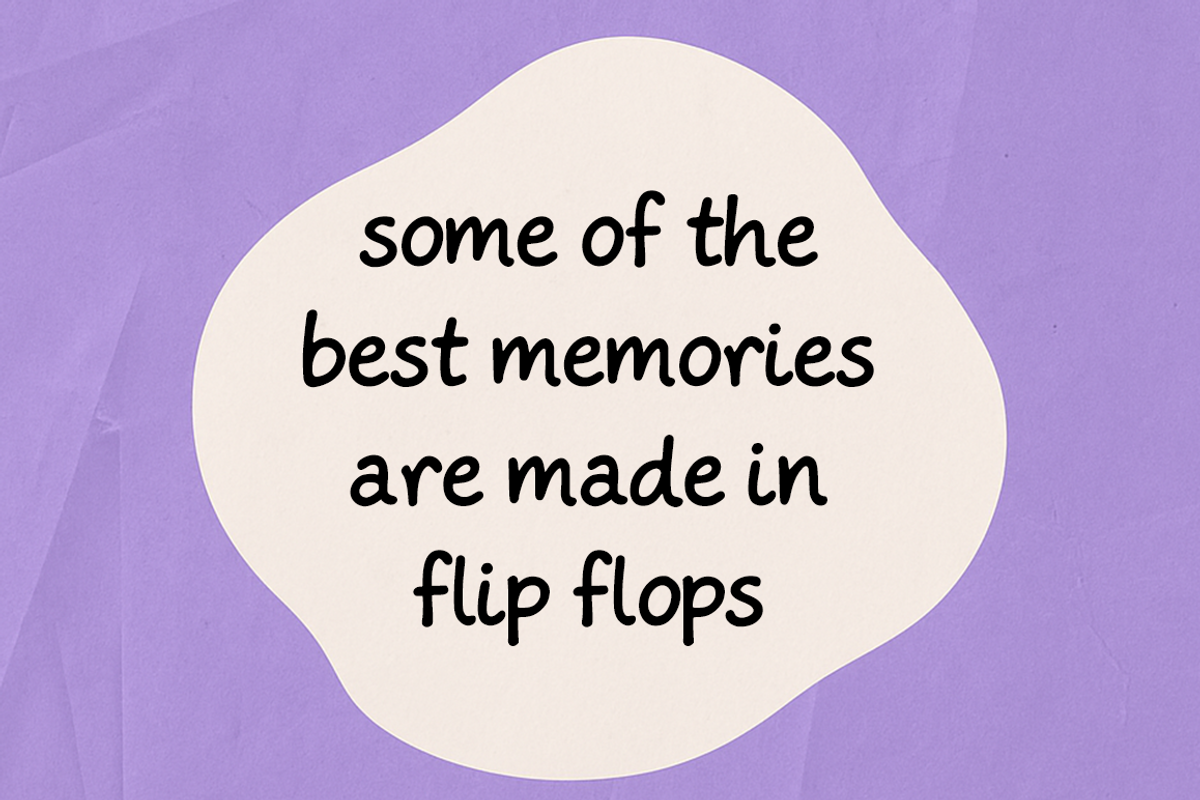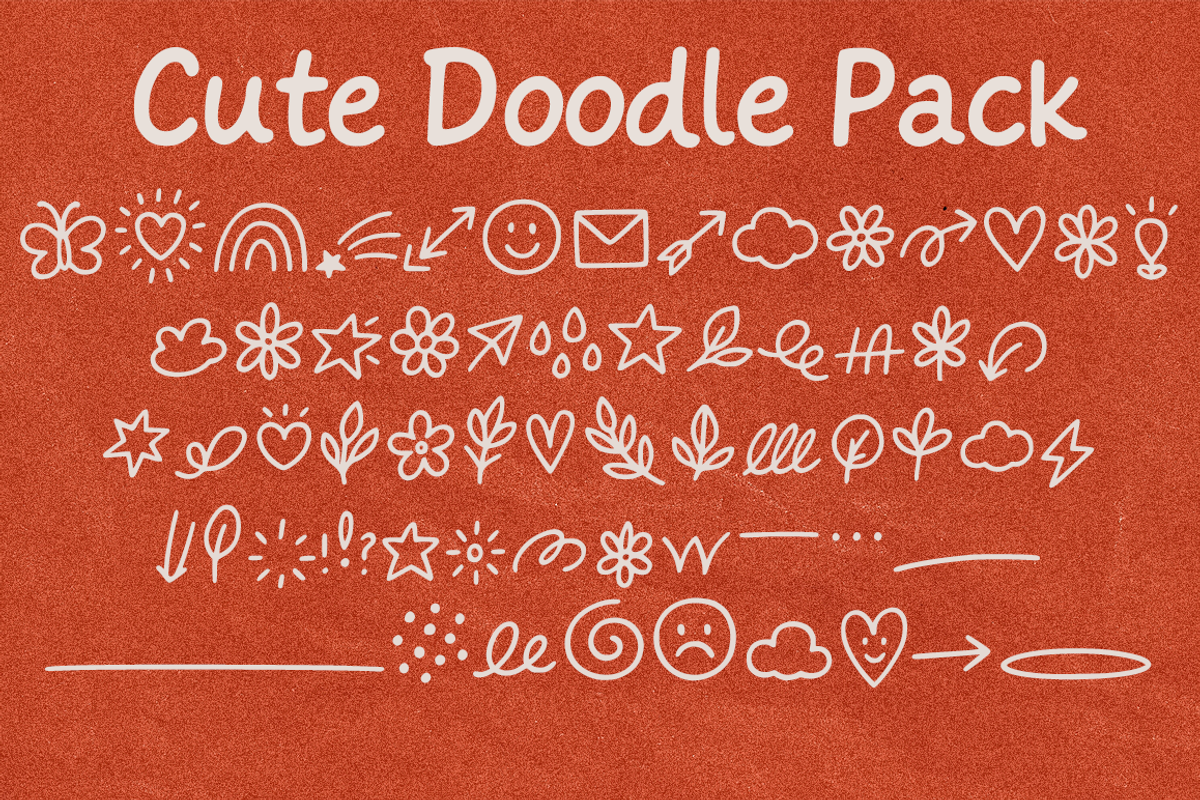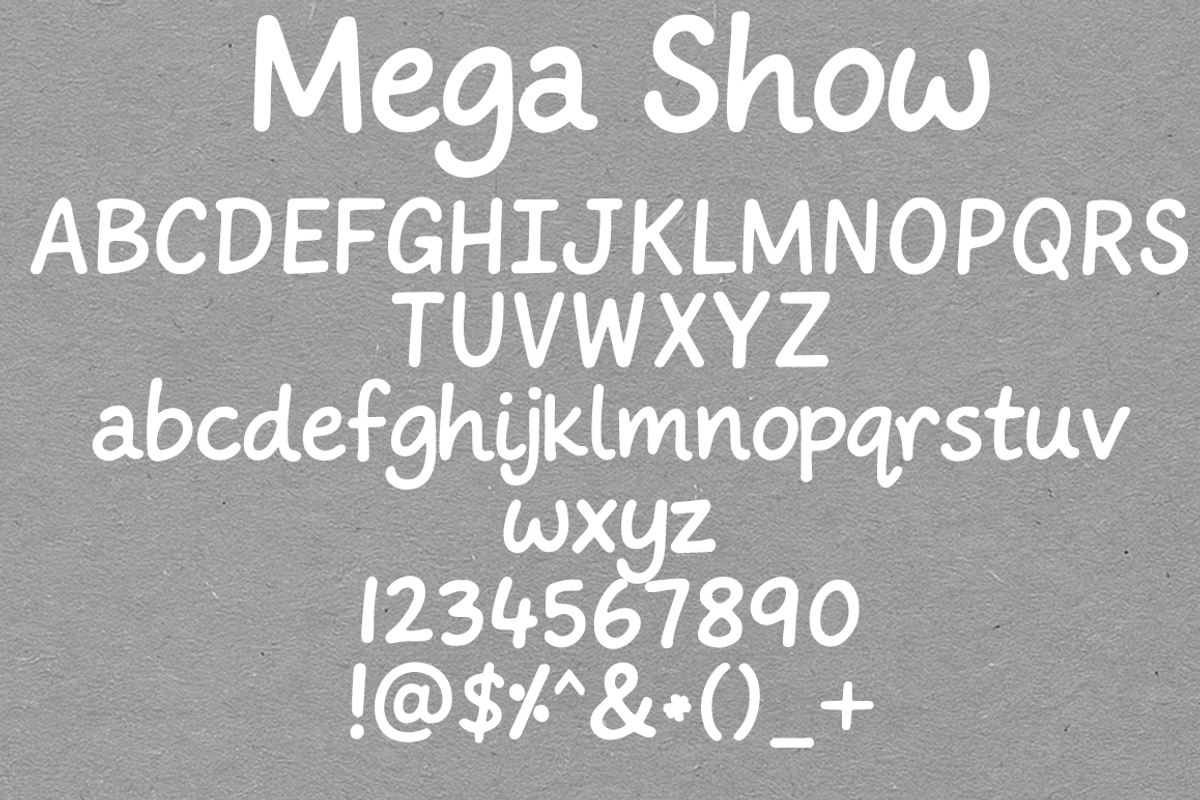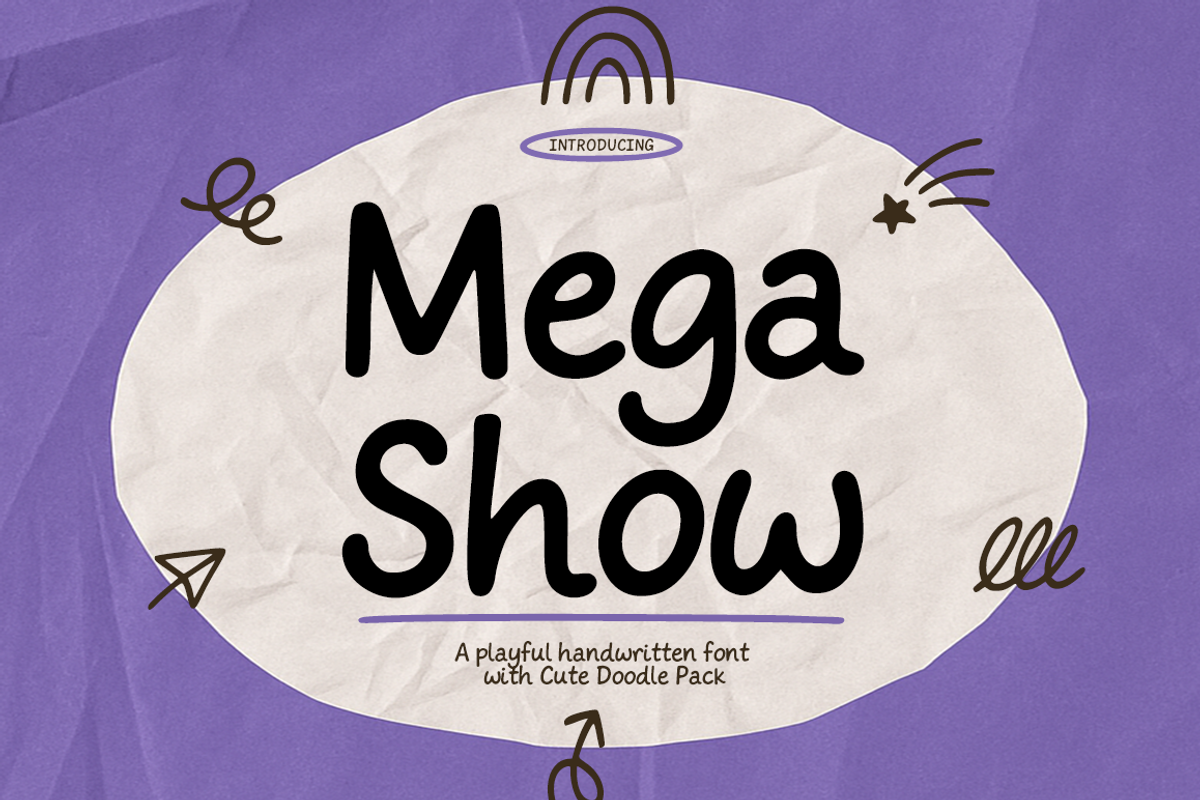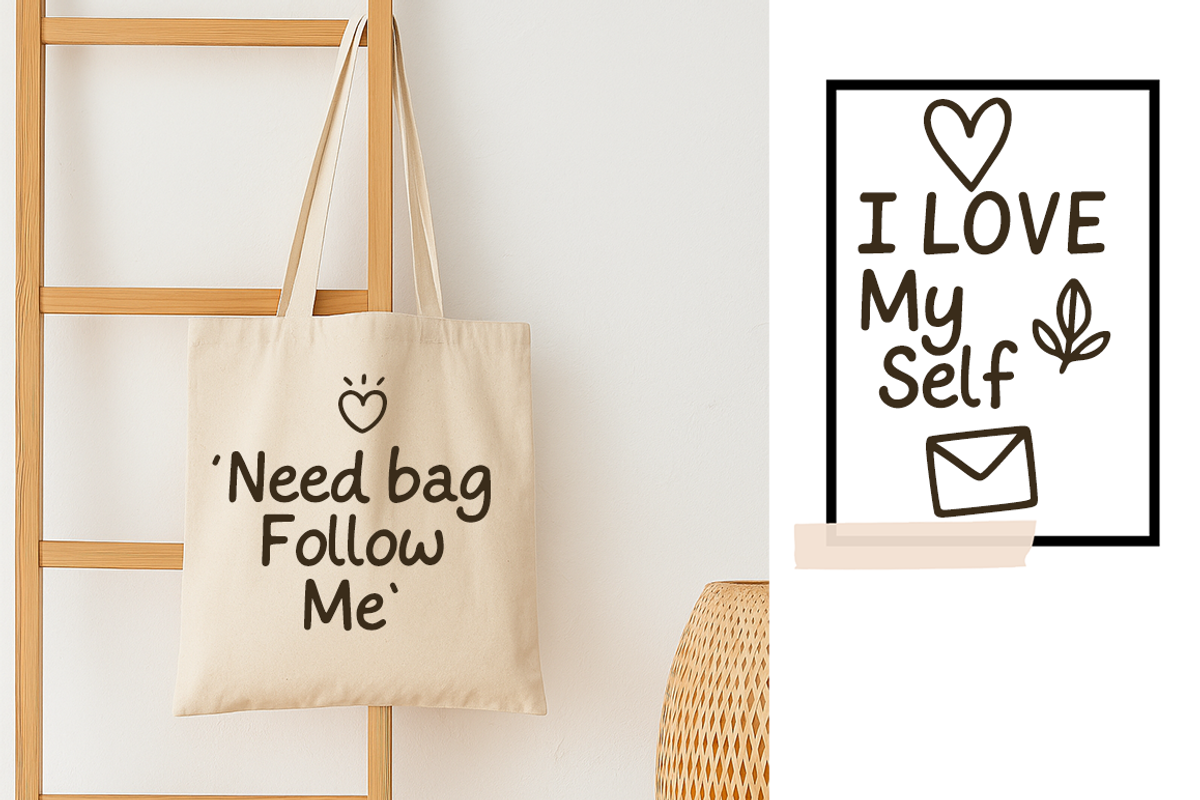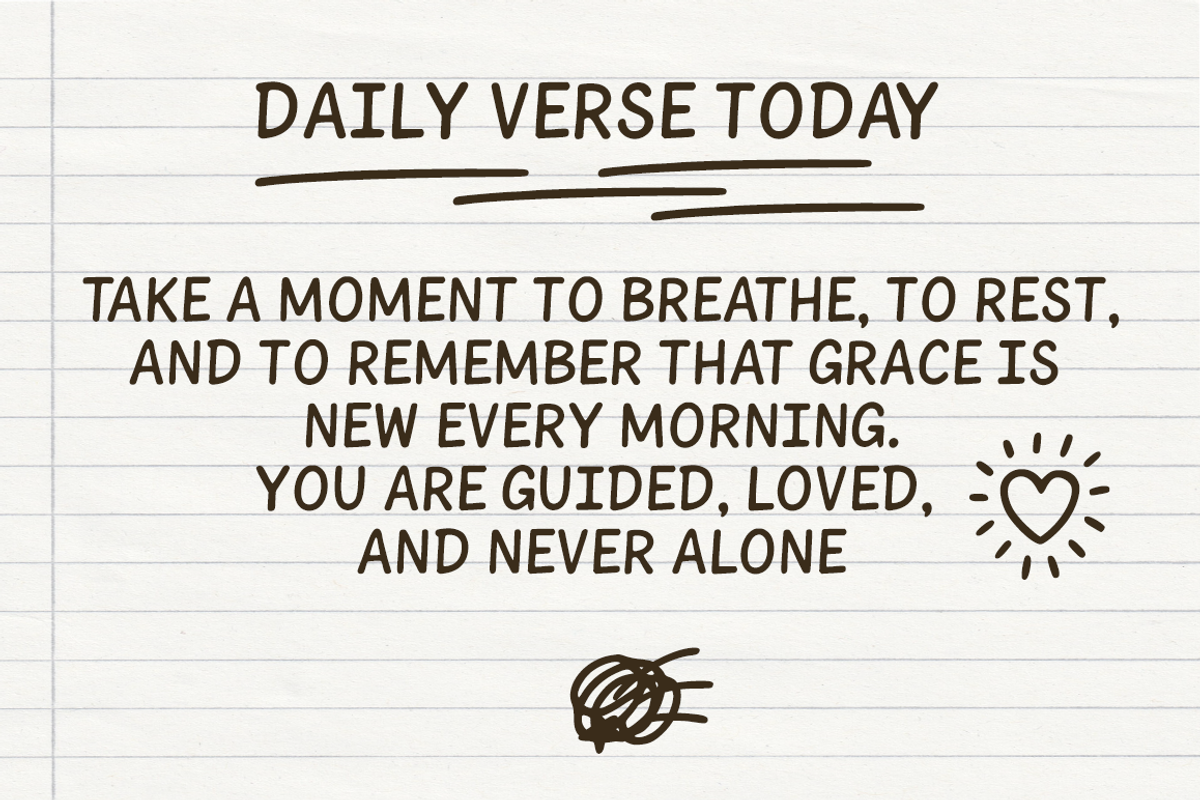
Mega Show – A Playful Handwritten
Mega Show – A Playful Handwritten Font with Cute Doodle Pack Mix font
Mega Show is a cheerful handwritten font designed to bring a fun and friendly energy to every project. Its rounded shapes and smooth handwritten flow create a casual yet clean look, making it suitable for a wide range of design styles.
Paired with a Cute Doodle Pack, this font delivers an extra dose of creativity and charm for branding, packaging, posters, social media, and children’s illustrations.